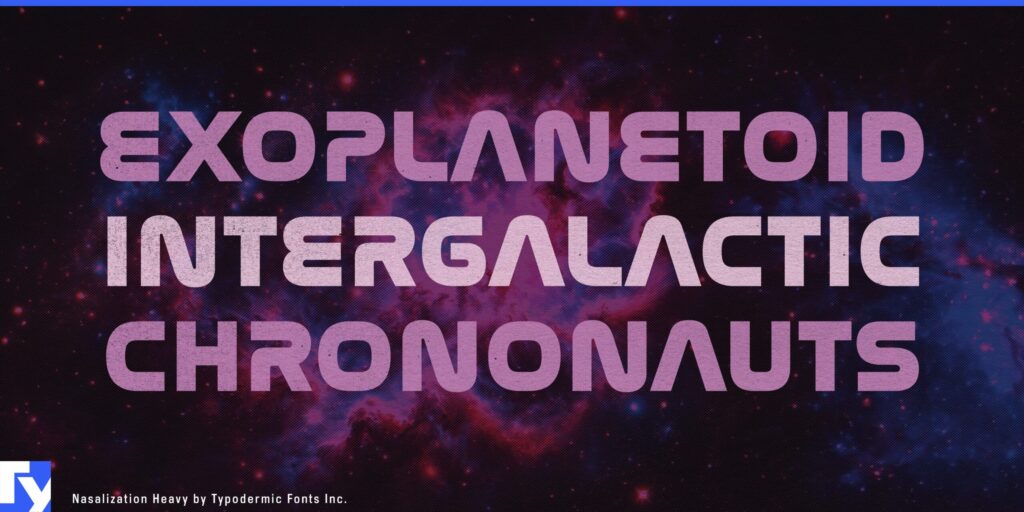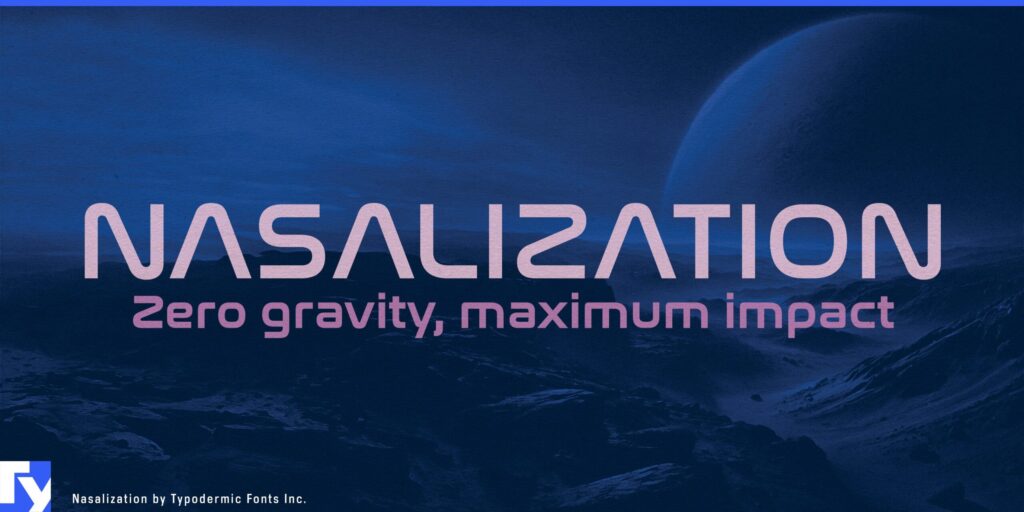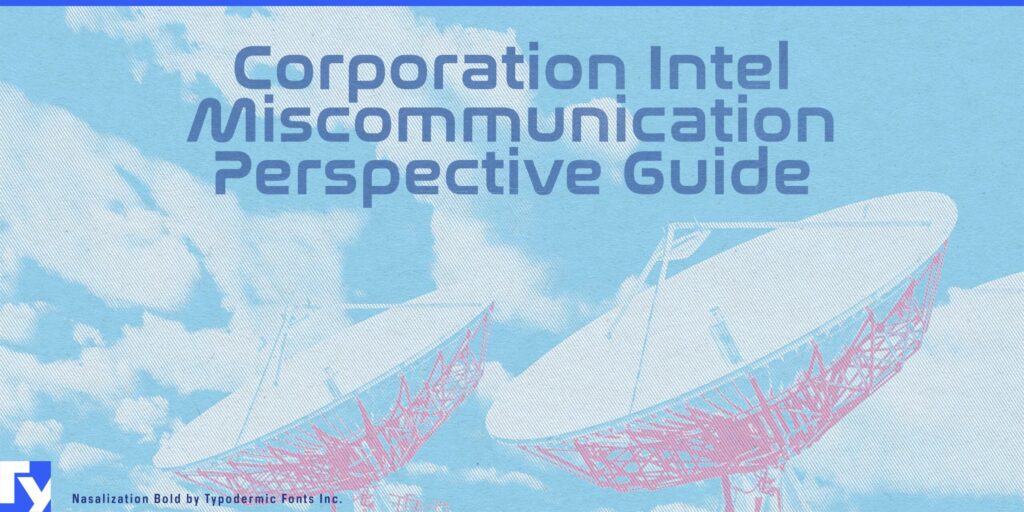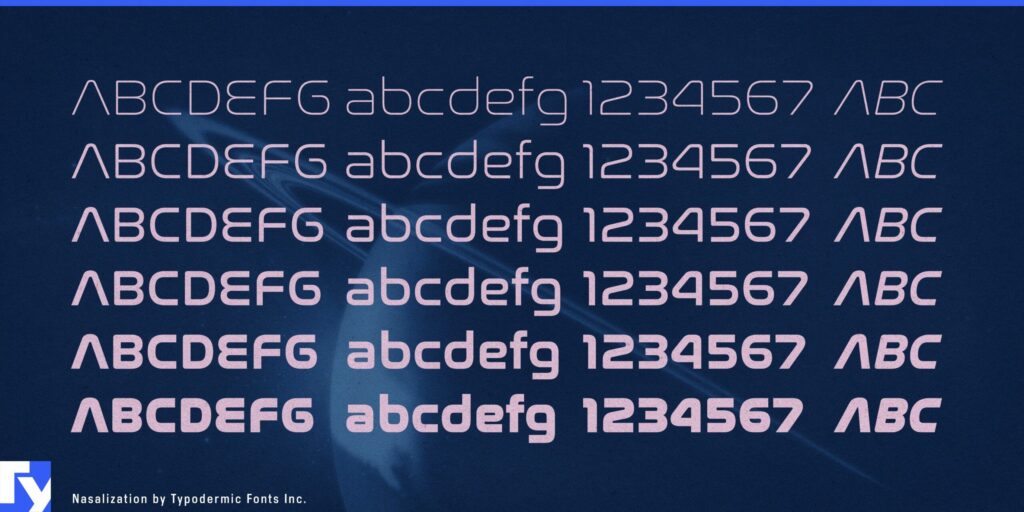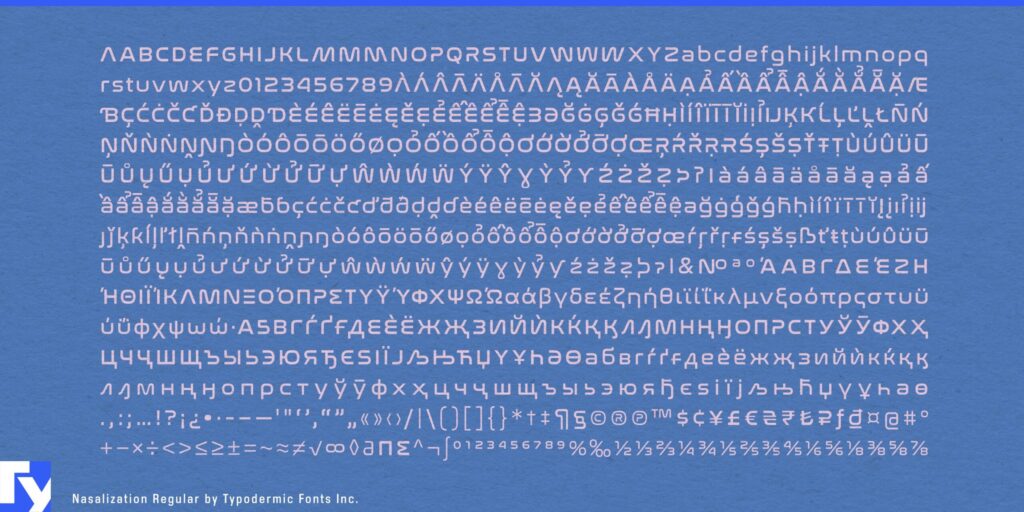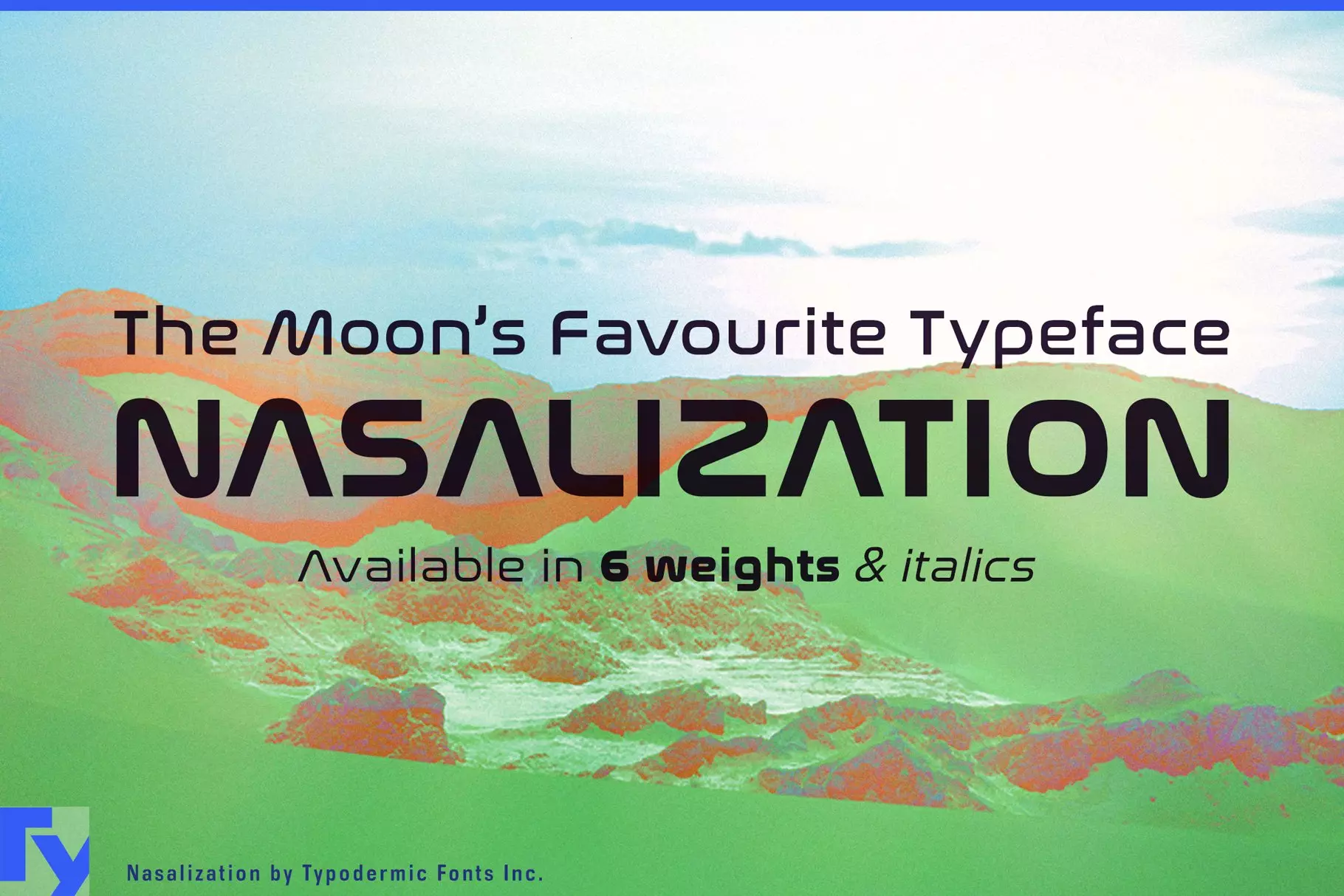
Nasalization Font is a futuristic typeface inspired by NASA’s iconic 1975 “worm” logo. This distinctive design blends modern precision with space-age aesthetics, making it one of the most recognizable Sans Serif fonts for technology and science-related visuals. With six weights, italics, and wide language support including Latin, Greek, and Cyrillic Nasalization ensures flexibility across global design projects.
Beyond its clean geometry, Nasalization carries the bold energy of a sports font sharp, dynamic, and full of motion. Its large x-height and consistent proportions guarantee clarity and power, whether used in digital interfaces, headlines, or athletic branding. Smart OpenType features, such as automatic alternates for “M” and “W,” add both technical precision and visual variety, making it a favorite among professional designers.
As a well-crafted family font, Nasalization has been used in major productions from NASA’s Perseverance mission to popular media graphics. Its futuristic personality and refined readability make it a timeless choice for sci-fi projects, sports branding, and innovative corporate identities. Nasalization embodies progress, precision, and the vision of tomorrow capturing the imagination of audiences worldwide.